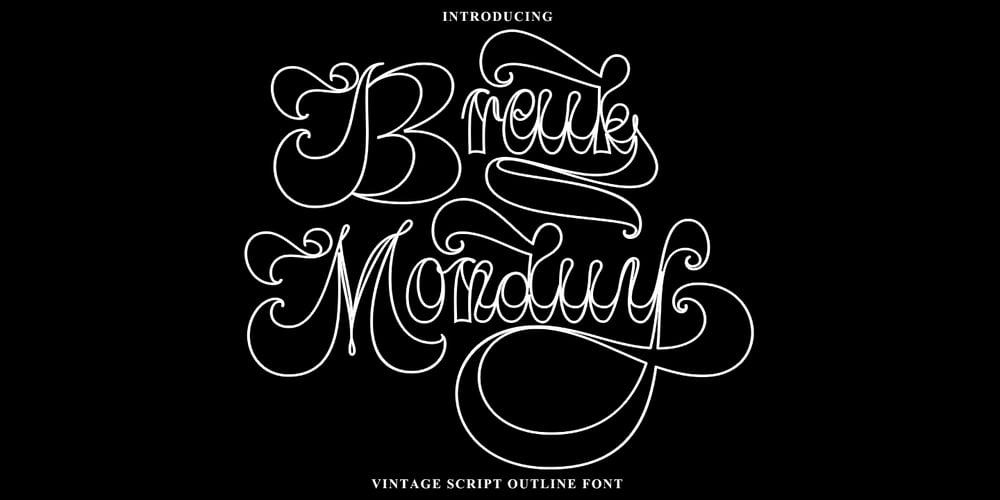
Breuk Monduy Outline Font Family was designed by Teuku Bustami and published by TM Type. Breuk Monduy Outline contains 1 styles and family package options. Breuk Monduy is a bold outline calligraphic script font that comes with beautiful alternate characters. copper calligraphy mix in handlettering style. Designed to convey an elegant style.Breuk Monduy is attractive because it is subtle, clean, feminine, sensual, glamorous, simple and very easy to read. Its classic style is perfect to apply to all kinds of formal items such as invitations, labels, menus, logos, fashion, make up, stationery, letterpress, romantic novels, magazines, books, greeting/wedding cards, packaging, labels.including multiple language support. It features OpenType with alternative styles, binders and character swashes, which allows you to mix and match letter pairs to suit your design, as well as a touch of ornamentation to make this font look elegant.